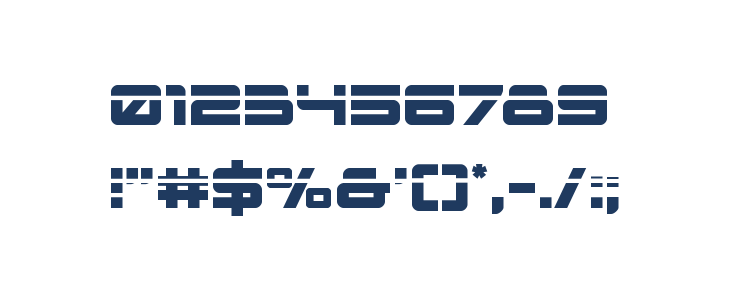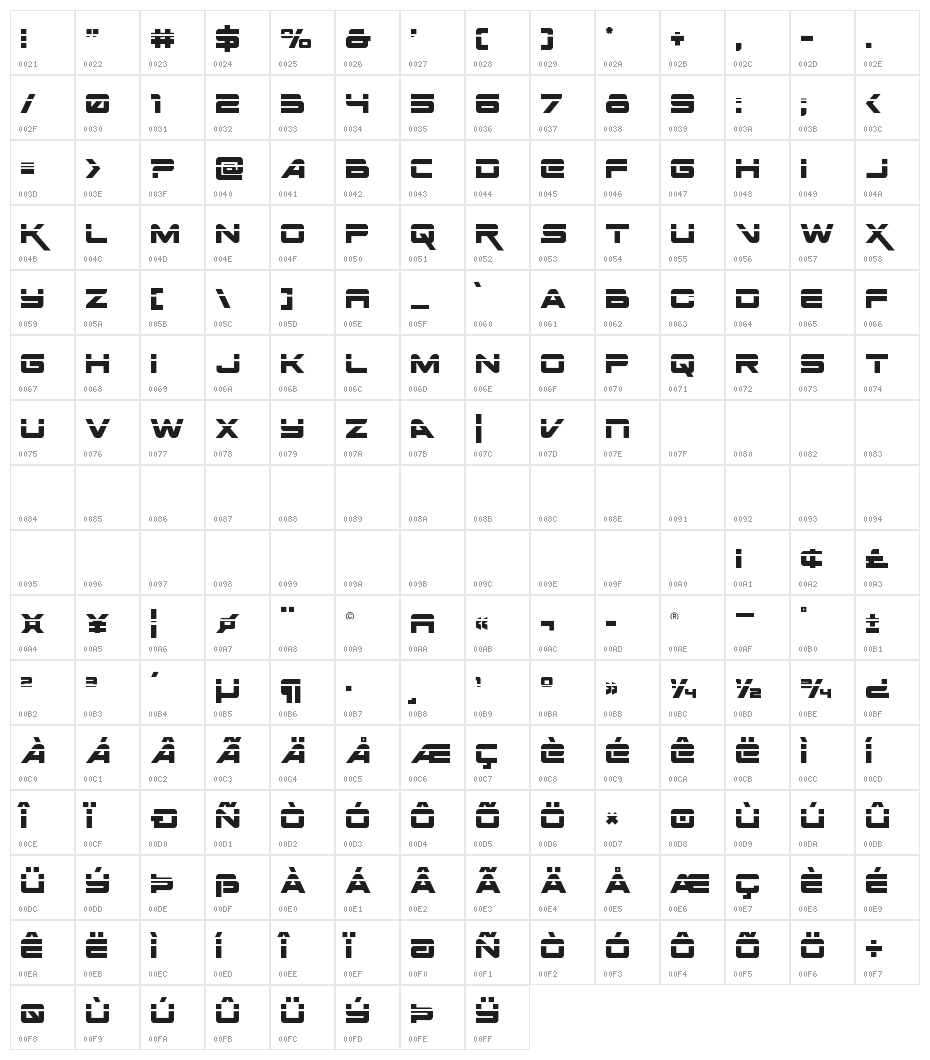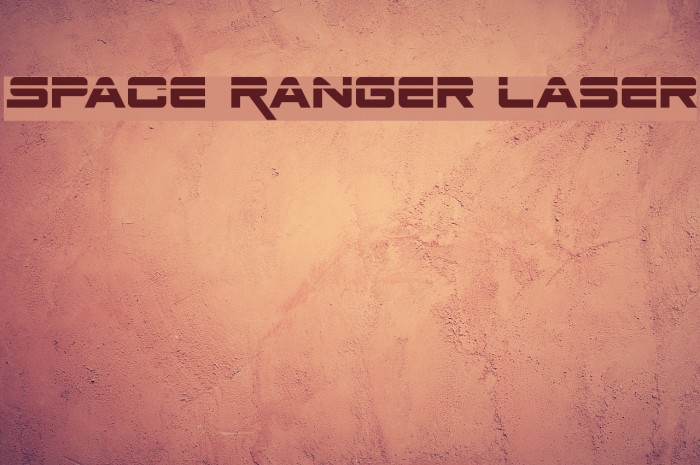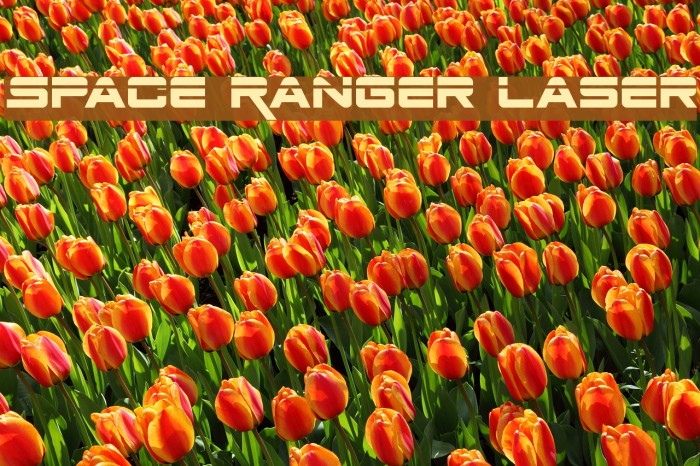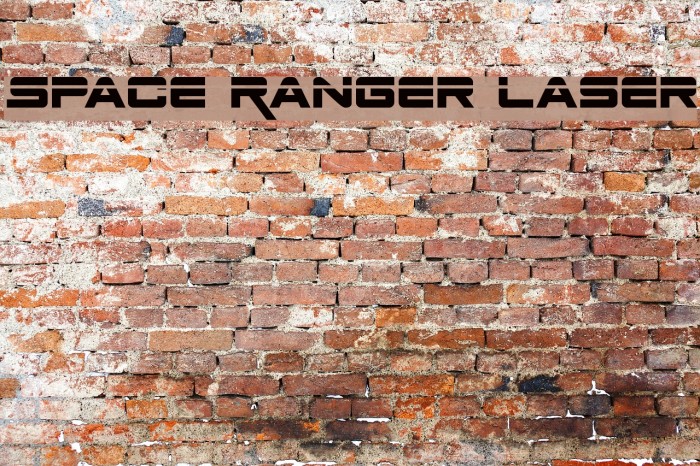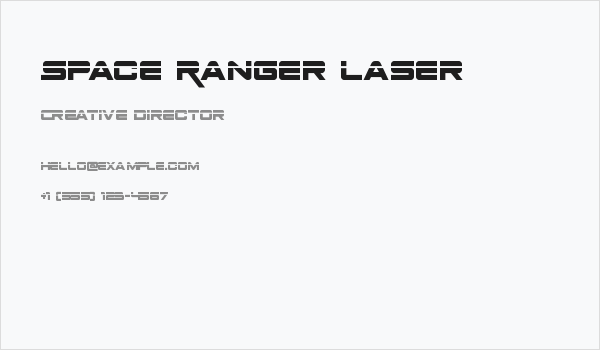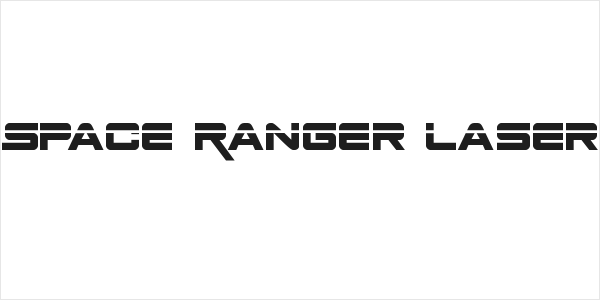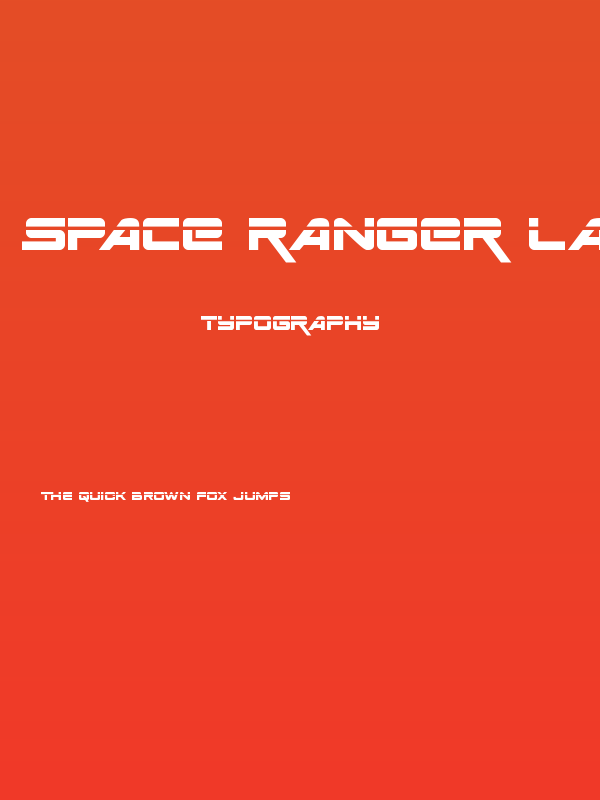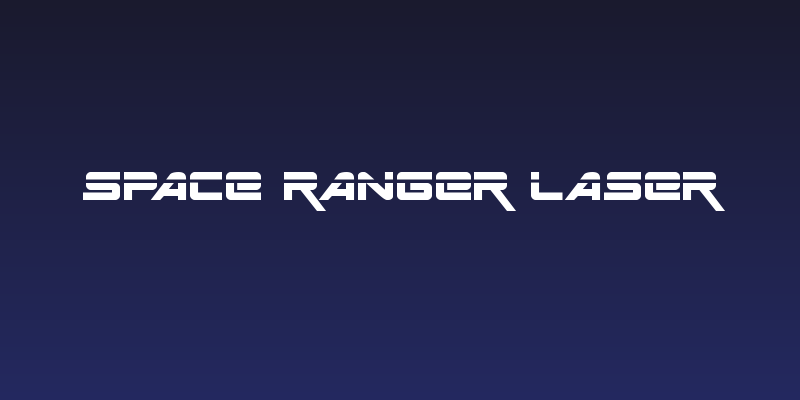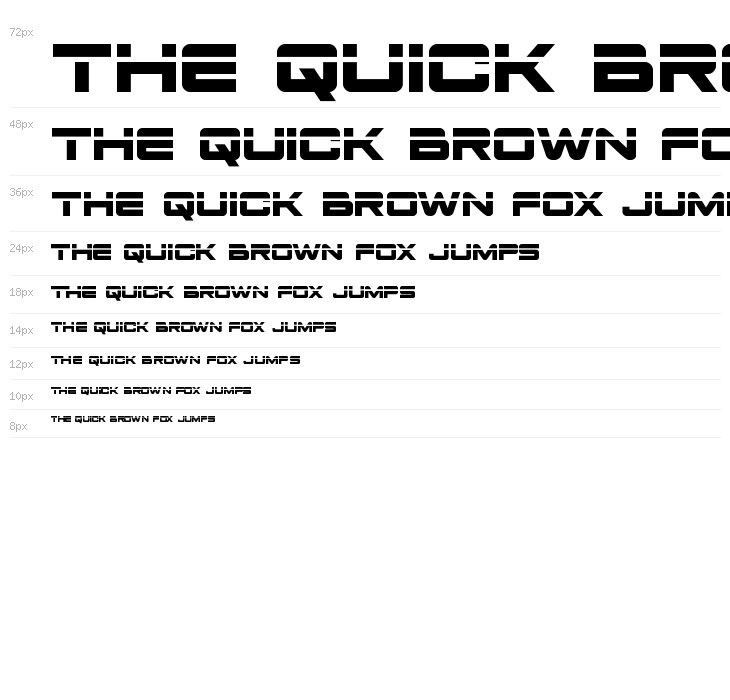
Space Ranger Laser Font
Space Ranger Laser Description
This font features a futuristic and bold design, characterized by sharp angles and geometric shapes that evoke a sense of technology and modernity. The uppercase letters are distinct with their angular cuts and extended lines, giving a dynamic and energetic feel. The lowercase letters maintain a consistent style, ensuring readability while preserving the font's unique aesthetic. The numbers are equally bold and geometric, fitting seamlessly with the overall design. Special characters are crafted with the same attention to detail, making them suitable for a variety of uses. This font is ideal for projects that require a modern, tech-inspired look.
Proposed ProjectsIdeal for sci-fi themed designs, tech branding, video game titles, and futuristic posters.